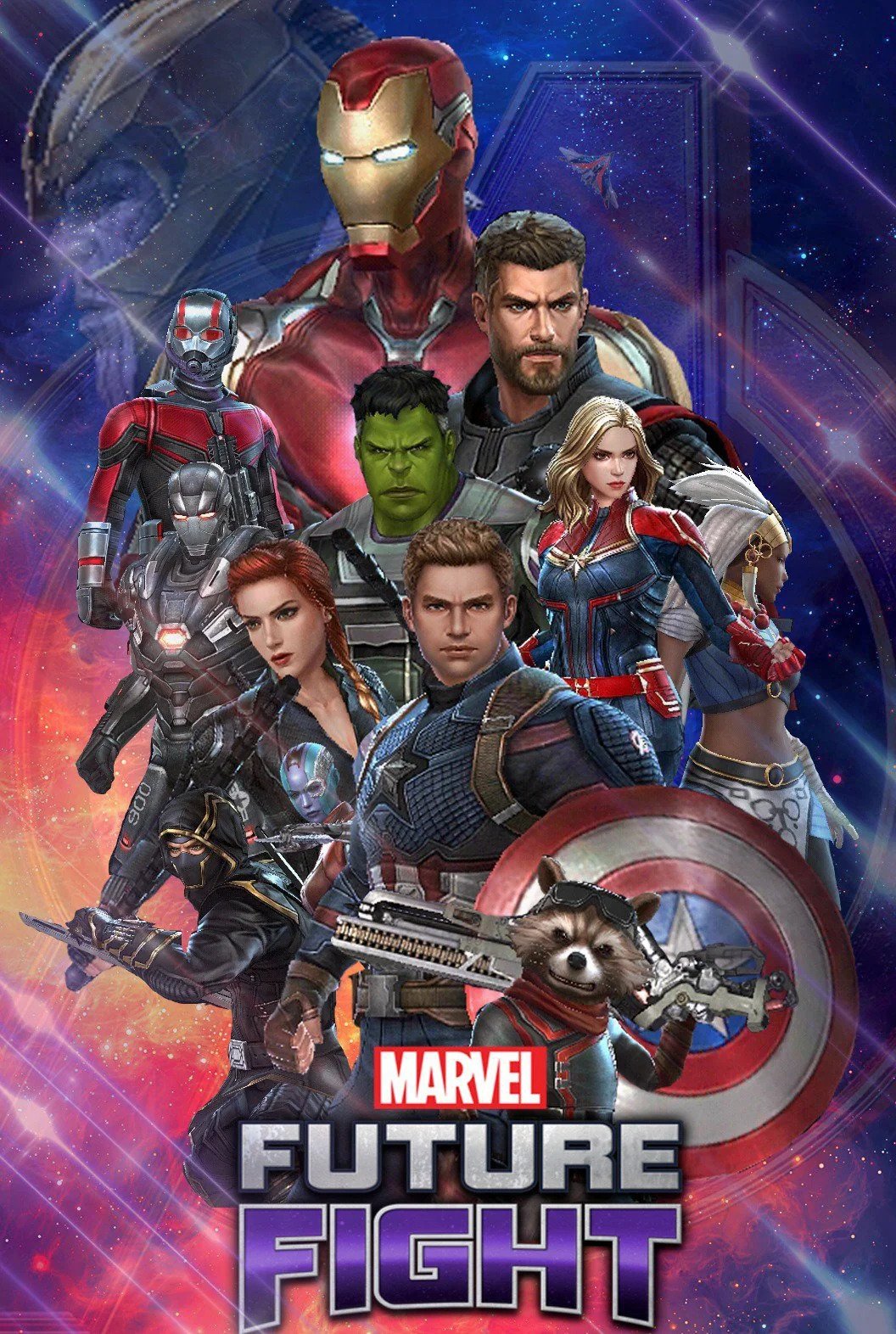
Marvel Future Fight Font
Fonts in UseMarvel: Future Fight is a mobile action RPG developed by Netmarble Games. The game features a storyline where heroes and villains from across the Marvel universe team up to stop a new threat.
The game logo's typography resembles the Design System B 900 font, which was created by Japanese type designer Ryoichi Tsunekawa. The Design System font family, which consists of 70 styles, is a versatile sans serif that is suitable for titles, logos, and even small portions of text, with its square and bold appearance.